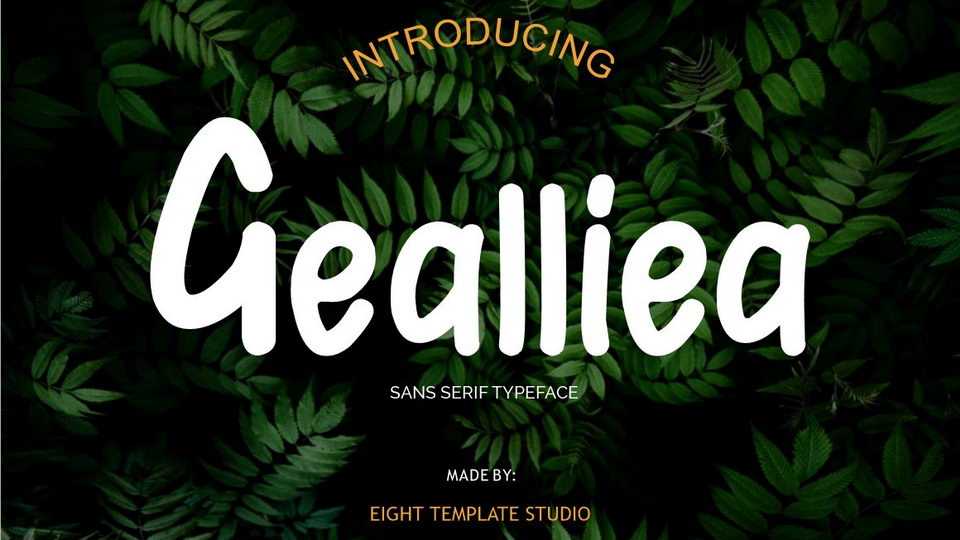
Download Gealliea font, a casual handwritten sans serif typeface created for your needs. Gealliea is perfect for logos for branding, typographic designs, badge designs and more.
Designer: Eight Template Studio